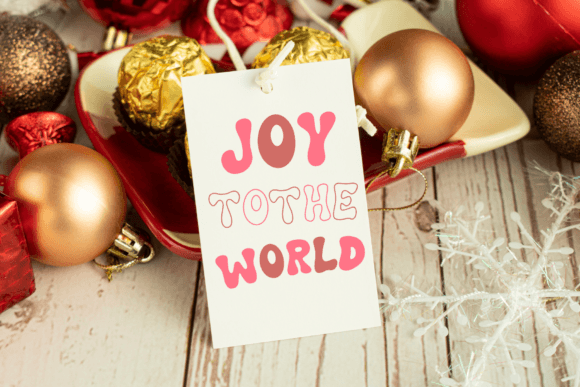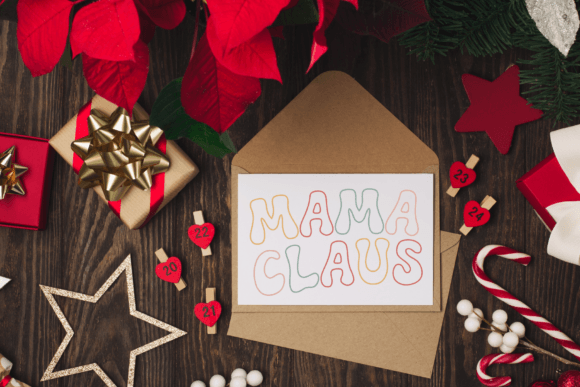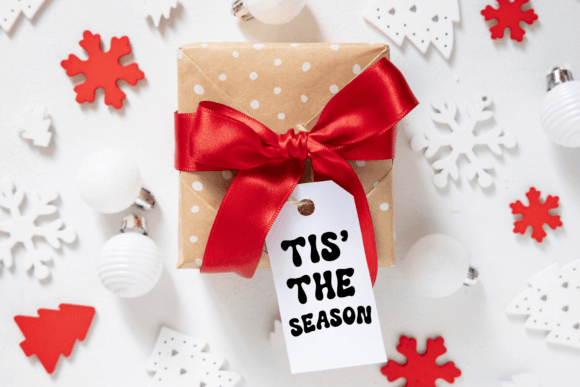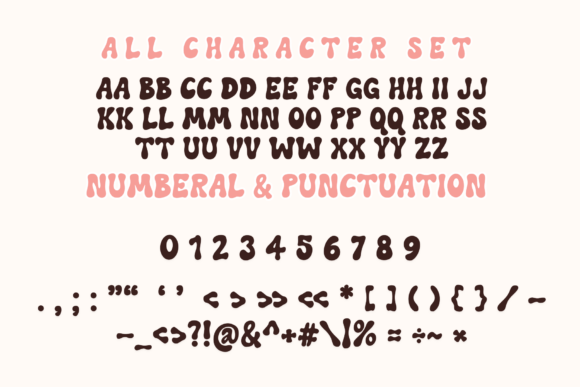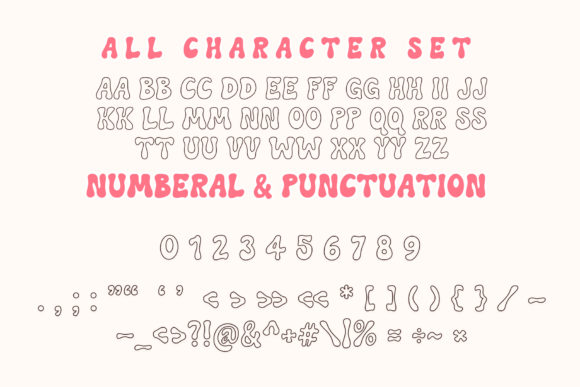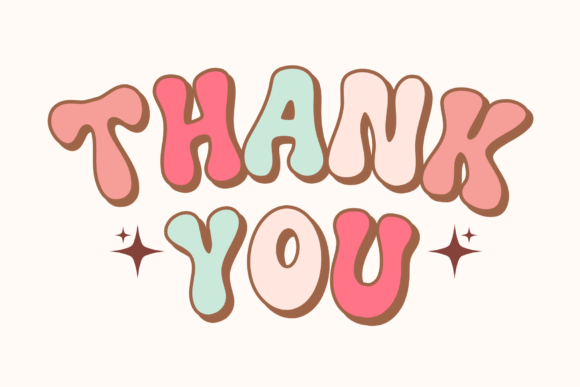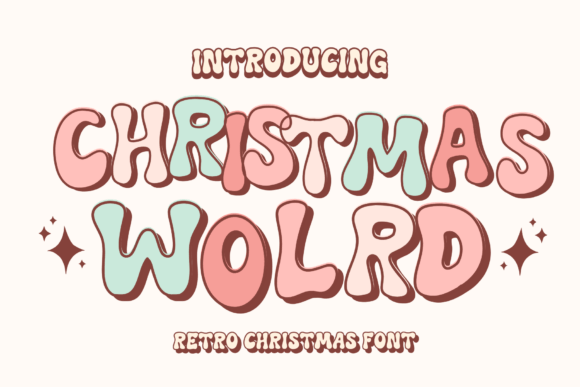
Introducing Christmas World Font: The Ultimate Retro Christmas Font Duo
Are you looking for a font that captures the essence of Christmas and adds a touch of playfulness to your designs? Look no further than Christmas World Font, a retro Christmas font duo that’s perfect for a wide range of projects. In this article, we’ll explore the features and benefits of Christmas World Font, and show you how to make the most of this amazing font in your designs.
What is Christmas World Font?
Christmas World Font is a carefully crafted font duo that embodies the spirit of Christmas with a retro twist. The font features a unique and authentic design that’s reminiscent of classic Christmas decorations, advertisements, and greeting cards from the past. With its playful and festive vibe, Christmas World Font is the perfect choice for designers and crafters who want to add a touch of nostalgia and whimsy to their projects.
Key Features of Christmas World Font
• Retro Christmas design: Christmas World Font features a unique retro design that’s inspired by classic Christmas decorations, ads, and greeting cards from the past.
• Playful and authentic: The font has a playful and authentic feel that’s perfect for adding a touch of whimsy and fun to your designs.
• Font duo: Christmas World Font comes as a duo, with two complementary fonts that can be used together or separately.
• High-quality design: The font is carefully crafted with attention to detail, ensuring a high-quality design that’s perfect for professional and personal projects.
Uses for Christmas World Font
Christmas World Font is a versatile font that can be used for a wide range of projects, including:
• Blog posts: Add a touch of Christmas cheer to your blog posts with Christmas World Font.
• Logos and branding: Use Christmas World Font to create a unique and memorable logo or brand identity.
• Ads and marketing materials: The font is perfect for creating eye-catching ads and marketing materials that capture the spirit of Christmas.
• Invitations and greeting cards: Create beautiful and festive invitations and greeting cards with Christmas World Font.
• Planners and photo albums: Add a touch of Christmas magic to your planners and photo albums with this amazing font.
• Decorations and more: Use Christmas World Font to create festive decorations, such as garlands, banners, and signs.
Tips for Using Christmas World Font
Here are some tips for getting the most out of Christmas World Font:
• Experiment with different colors: Try out different colors and color combinations to find the perfect look for your project.
• Mix and match fonts: Use the two fonts in the Christmas World Font duo together or separately to create a unique look.
• Add festive graphics: Add festive graphics, such as holly, snowflakes, or Christmas trees, to really make your project pop.
• Play with textures and patterns: Experiment with different textures and patterns, such as glitter or snow, to add depth and interest to your project.